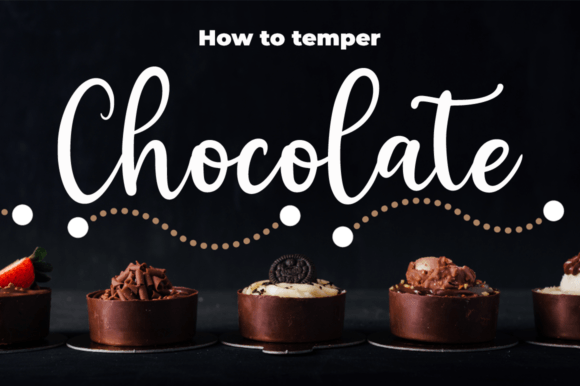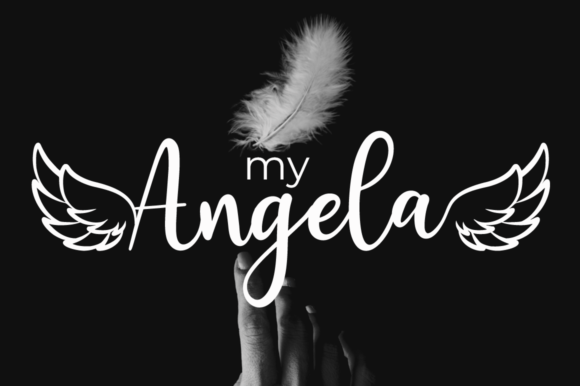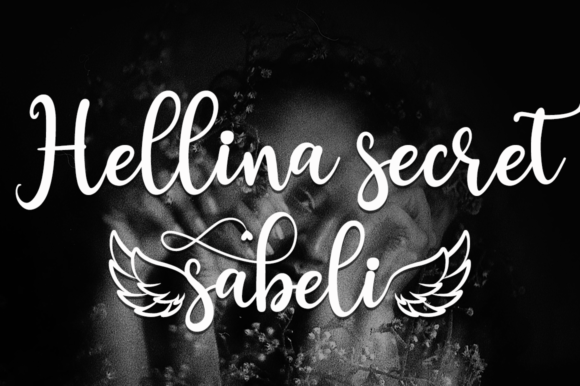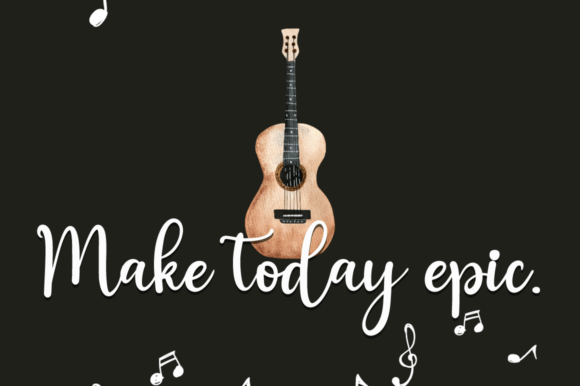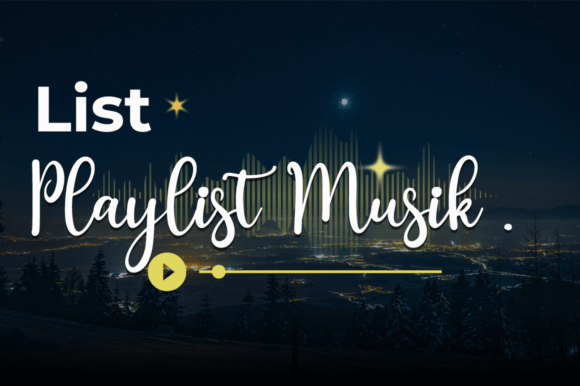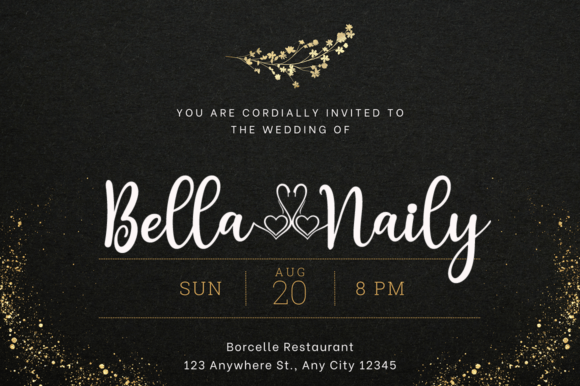
Baby Angel Font: Elevate Your Designs with Elegance and Sophistication
Are you searching for a font that embodies the perfect blend of modern elegance and casual sophistication? Look no further than the Baby Angel Font, a stunning contemporary calligraphy design that is sure to elevate your designs to new heights. In this article, we’ll delve into the world of Baby Angel Script, exploring its unique features, versatility, and the endless possibilities it offers for designers and crafters alike.
The Charm of Baby Angel Script
Baby Angel Script is more than just a font – it’s an experience. With its delicate, swirling lines and whimsical flourishes, this beautiful script font is sure to capture the hearts of designers and crafters worldwide. Whether you’re working on a logo, product packaging, wedding invitation, or branding project, Baby Angel Script is the perfect choice for adding a touch of elegance and sophistication.
A Contemporary Calligraphy Design
Baby Angel Script is a modern calligraphy design that boasts a unique, hand-crafted feel. Its fluid lines and subtle imperfections give it a distinctly human touch, setting it apart from more traditional fonts. This contemporary approach to calligraphy makes Baby Angel Script perfect for designers looking to add a fresh, modern twist to their work.
One of the standout features of Baby Angel Script is its incredible versatility. This font can be used in a wide range of applications, from logos and product packaging to wedding invitations, branding, headlines, and signage. Whether you’re working on a large-scale project or a small, personal endeavor, Baby Angel Script is sure to make a lasting impression.
When it comes to creating a logo or branding identity, Baby Angel Script is an excellent choice. Its elegant, sophisticated lines make it perfect for businesses and organizations looking to establish a professional, high-end image. Whether you’re working on a luxury brand or a small, boutique business, Baby Angel Script is sure to help you stand out from the crowd.
Elevate Your Wedding Invitations and Stationery
Baby Angel Script is also an excellent choice for wedding invitations, stationery, and other personal projects. Its whimsical, romantic feel makes it perfect for couples looking to add a touch of elegance and sophistication to their special day. Whether you’re designing invitations, save-the-dates, or thank-you cards, Baby Angel Script is sure to make your project truly unforgettable.
Captivating Headlines and Signage
In addition to its uses in logos, branding, and stationery, Baby Angel Script is also perfect for attention-grabbing headlines and distinctive signage. Its bold, flowing lines make it easy to read and visually striking, making it an excellent choice for businesses, organizations, and individuals looking to make a statement.
Why Choose Baby Angel Font?
So why choose Baby Angel Font for your next project? Here are just a few reasons why this beautiful script font stands out from the crowd:
- Elegance and sophistication: Baby Angel Script boasts a unique blend of modern elegance and casual sophistication, making it perfect for a wide range of applications.
- Versatility: This font can be used in everything from logos and branding to wedding invitations, headlines, and signage.
- Unique, hand-crafted feel: Baby Angel Script’s fluid lines and subtle imperfections give it a distinctly human touch, setting it apart from more traditional fonts.
- Easy to read: Despite its elegant, cursive lines, Baby Angel Script is easy to read, making it perfect for use in headlines, signage, and other applications where readability is key.
| Font Name | Baby Angel Font |
| Author | cocodesign |
In conclusion, Baby Angel Font is a stunning contemporary calligraphy design that offers a unique blend of elegance, sophistication, and versatility. Whether you’re a designer, crafter, or simply someone looking to add a touch of elegance to your project, Baby Angel Script is an excellent choice. With its beautiful, flowing lines and whimsical flourishes, this font is sure to elevate your designs to new heights and leave a lasting impression on your audience.